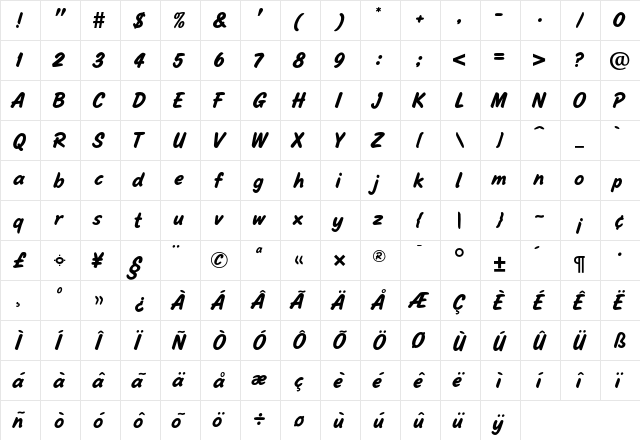
AsdaScript Regular
Design Context for AsdaScript Typeface
AsdaScript brings a calligraphic fluidity to the page — its connecting strokes and expressive curves give it an unmistakably human quality.
Font Pairing: Combine AsdaScript with a simple geometric sans for maximum contrast — the tension between flowing curves and clean structure is a classic typographic pairing.
Pro Tip: Pair AsdaScript with a clean sans-serif for supporting text. The contrast between fluid script and geometric structure creates an elegant typographic hierarchy.